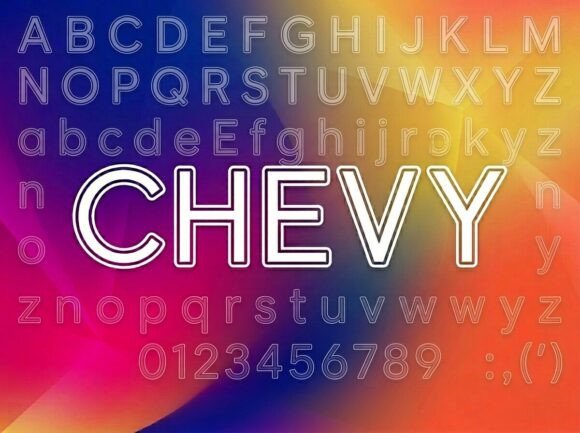
How Chevy Transformed My Small Business Brand Identity
I remember the exact moment I realized my brand needed a change. It was late on a Tuesday night, and I was sitting at my kitchen table surrounded by stacks of packaging for my handmade candle business. I had spent hours arranging the labels, but something felt off. The text looked generic, almost invisible against the warm beige background. My customers were buying the scent, sure, but they weren't falling in love with the look of it. That's when I decided to stop scrolling through endless templates and finally found Chevy.
This wasn't just about picking a pretty font; it was about giving my small business the confidence it deserved. Chevy is a stunning decorative display font designed to be the center of attention. When I first saw it, I knew it had that strong visual personality I was missing. It features unique artistic elements that make every letter feel like a handcrafted piece of art rather than standard computer text. For any creator looking to improve their brand visuals, this typeface offers exactly what you need to stand out in a crowded marketplace.
Why Typography Matters for Your First Impressions
As a small business owner, I often think about how much time we spend worrying about product quality or pricing. Yet, the very first thing a customer notices is usually the visual presentation. Typography affects first impressions more than we realize. A clean, consistent typeface builds trust, while a mismatched one can make even the best products look amateurish. Before I switched to Chevy, my social media graphics and printed materials felt disjointed. One week I used a script font, the next a bold sans serif, and the result was a brand identity that felt scattered.
Chevy changed the game by providing a cohesive anchor for my design assets. Whether I am designing a logo, updating a menu, or creating digital ads, this font brings a sense of polish and professionalism. It helps a business look more recognizable and customer-friendly because the visual language remains consistent across every touchpoint. When a customer sees my packaging, my website banners, and my Instagram posts all featuring the same distinct style, they subconsciously understand that my brand is reliable and established.
Bringing Chevy to Life in Real-World Applications
The versatility of Chevy makes it perfect for so many different business needs. In my own shop, I started by using it for my product labels. The way the letters curve and interact creates an elegant yet modern typography style that elevates simple glass jars into premium gifts. I also used Chevy for my thank-you cards, which are sent with every order. The font's decorative nature adds a personal, high-end touch that makes customers feel special without needing expensive calligraphy.
- Logo Design: Chevy works beautifully as a primary element in a logo, especially for boutique owners or creative entrepreneurs who want a memorable mark.
- Packaging Design: From bakery boxes to skincare labels, the font's strong presence ensures your product name pops off the shelf.
- Social Media Graphics: When creating thumbnails or promotional posts, Chevy draws the eye immediately, increasing engagement rates.
- Menus and Flyers: For café owners or event planners, this display font adds character to menus and event flyers, making them feel curated rather than mass-produced.
I also experimented with using Chevy for short phrases and decorative accents on my website. It is not necessarily meant for long paragraphs of body text, but for headlines, titles, and taglines, it is unmatched. By reserving Chevy for these key moments, I created a rhythm in my design that guides the customer's eye naturally from the headline to the call-to-action.
Pairing Chevy for Maximum Impact
p>One of the most common questions I get from fellow entrepreneurs is how to pair a decorative font like Chevy with other styles. The secret lies in balance. Because Chevy is so expressive and detailed, it pairs exceptionally well with a clean sans serif font for supporting text. This combination allows the headline to shine while keeping the details easy to read.For example, on my product packaging, I use Chevy for the brand name and a simple, modern sans serif for the ingredient lists and descriptions. This creates a sophisticated editorial design look that feels both trendy and timeless. If you are aiming for a softer, more romantic vibe, try pairing Chevy with an elegant serif font or a delicate handwritten font for notes and signatures. Just be careful not to compete with too many different styles; let Chevy be the star of the show.
When designing for mobile screens or small labels, readability becomes crucial. Chevy has excellent legibility for short phrases, but if you are printing on tiny tags, ensure the size is large enough so the artistic details don't blur. On larger formats like web design or posters, you can fully appreciate the unique strokes and curves that make this font so special.
So, the next time you are staring at a blank screen wondering how to make your next campaign pop, remember that typography speaks volumes. Let Chevy be the voice of your brand, turning ordinary materials into extraordinary experiences that your customers will remember long after they've made their purchase.